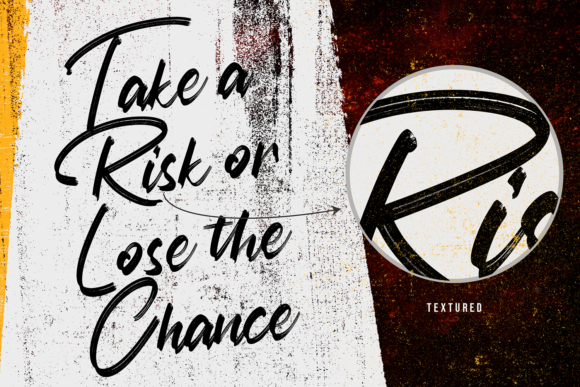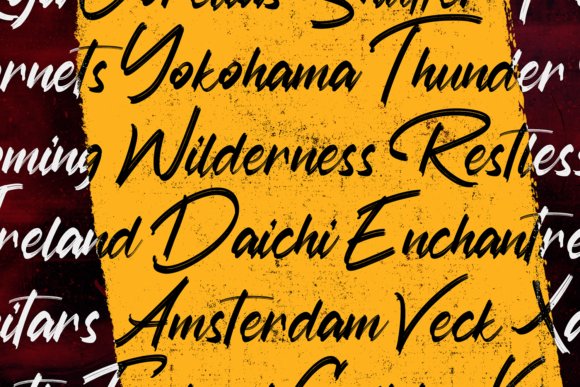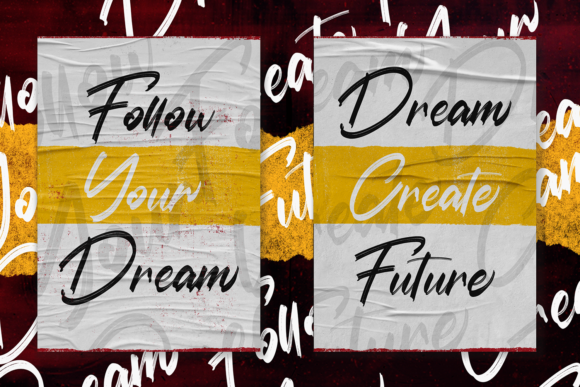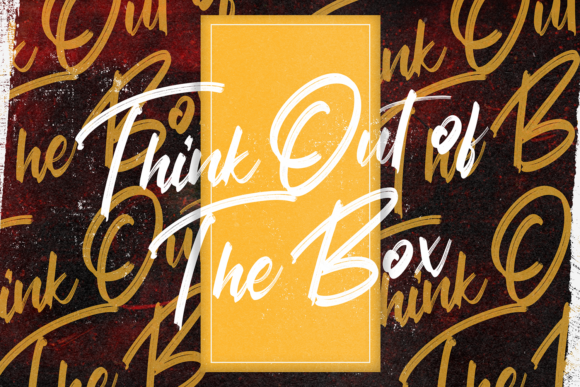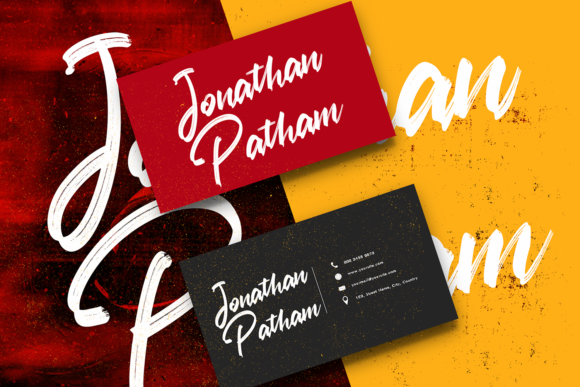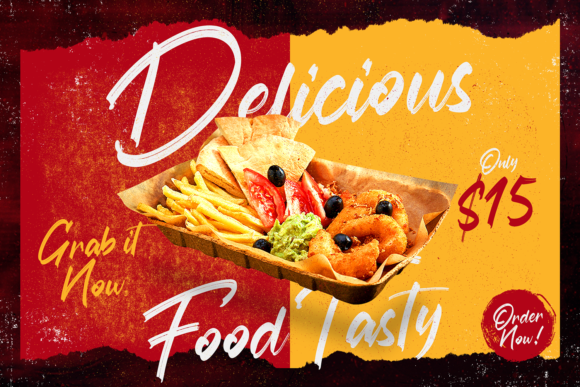
Austhind Font: Bringing Creative Ideas to Life with Elegant Handwriting
Austhind Font is a stunning handwritten font that has been carefully crafted with the help of an outstanding brush pen. This gorgeous font is perfect for designers and crafters who are looking to add a personal touch to their creative projects. With Austhind, you can bring your ideas to life and make them stand out from the crowd.
The Story Behind Austhind Font
Austhind Font is a unique and elegant handwritten font that has been designed to capture the essence of traditional handwriting. The font has been created using a high-quality brush pen, which gives it a distinctive and authentic look. The designer of Austhind Font has put a lot of effort into creating a font that is not only beautiful but also highly versatile.
Key Features of Austhind Font
- Handwritten with love: Austhind Font is a genuine handwritten font that has been crafted with care and attention to detail.
- Brush pen texture: The font features a beautiful brush pen texture that gives it a unique and organic look.
- Highly legible: Despite its elegant and cursive nature, Austhind Font is highly legible and easy to read.
- Multilingual support: Austhind Font supports multiple languages, making it a great choice for designers and crafters who work with international clients.
Use Cases for Austhind Font
Austhind Font is a versatile font that can be used in a variety of creative projects. Here are some use cases where Austhind Font can shine:
- Branding and logos: Austhind Font can be used to create elegant and sophisticated logos that reflect a brand’s personality.
- Wedding and event invitations: The font’s elegant and cursive nature makes it perfect for wedding and event invitations.
- Social media graphics: Austhind Font can be used to create beautiful and eye-catching social media graphics that stand out from the crowd.
- Packaging design: The font can be used to create stunning packaging designs that reflect a brand’s personality and style.
Tips for Using Austhind Font
Here are some tips for using Austhind Font in your creative projects:
- Pair it with a sans-serif font: Pairing Austhind Font with a sans-serif font can create a beautiful contrast that makes your design stand out.
- Experiment with colors: Austhind Font looks great in a variety of colors, so don’t be afraid to experiment and find the perfect color scheme for your design.
- Use it sparingly: While Austhind Font is a beautiful font, it can be overwhelming if used excessively. Use it sparingly to create a focal point in your design.
Austhind Font is a gorgeous handwritten font that can bring your creative ideas to life. With its elegant and cursive nature, it’s perfect for designers and crafters who are looking to add a personal touch to their projects. Whether you’re creating a logo, wedding invitation, or social media graphic, Austhind Font is a great choice. So why not give it a try and see how it can elevate your designs?
Overall, Austhind Font is a beautiful and versatile font that can add a touch of elegance to any design. With its unique brush pen texture and highly legible nature, it’s perfect for designers and crafters who are looking to create stunning creative projects.